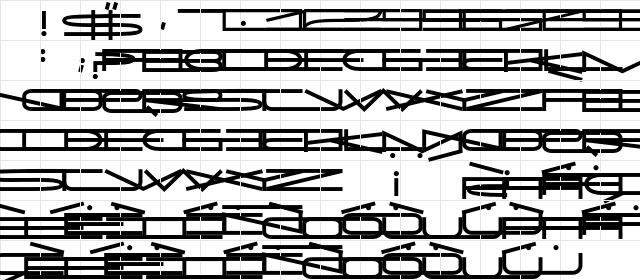
JMH Extra Wide Ultra-expanded Regular
Design Context for JMH Extra Wide Typeface
JMH Extra Wide offers clean, dependable letterforms without strong stylistic allegiance, making it a practical choice for designers who need flexibility.
Pro Tip: Use JMH Extra Wide in both headline and body roles to test its range before committing to a single application.